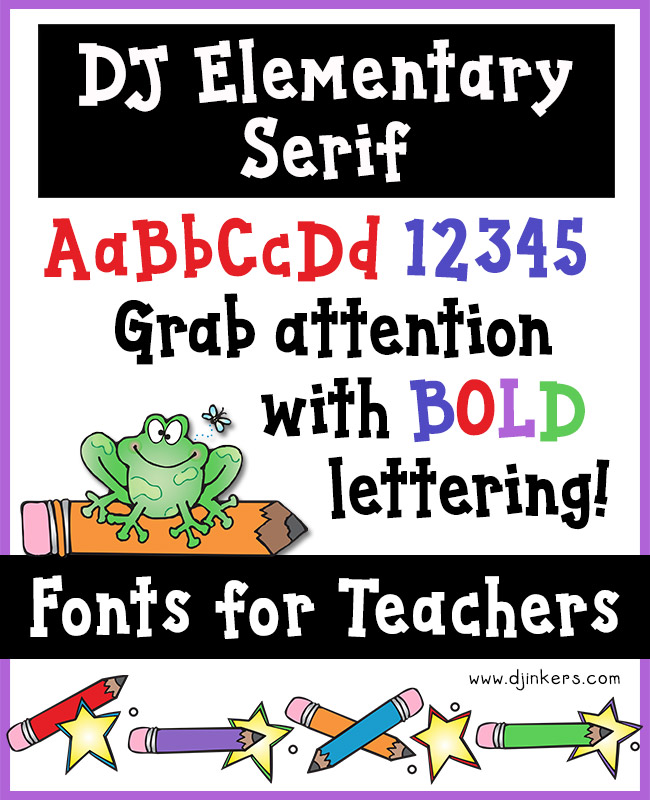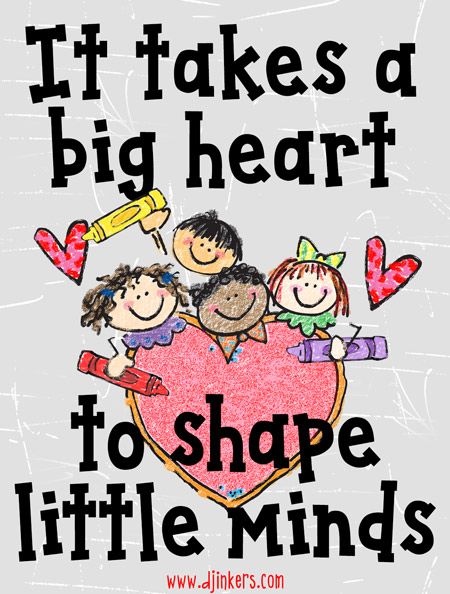
A bold and whimsical serif font for teachers, posters and smiles by DJ Inkers
Need your lettering to make a statement? This bold serif font is excellent for headlining text on posters, fliers, school projects, sporting events and labels. Sure to be a teacher favorite, DJ Elementary Serif is strong and easy to read... but still gives that hand-drawn look of whimsy. Type up a smile today!